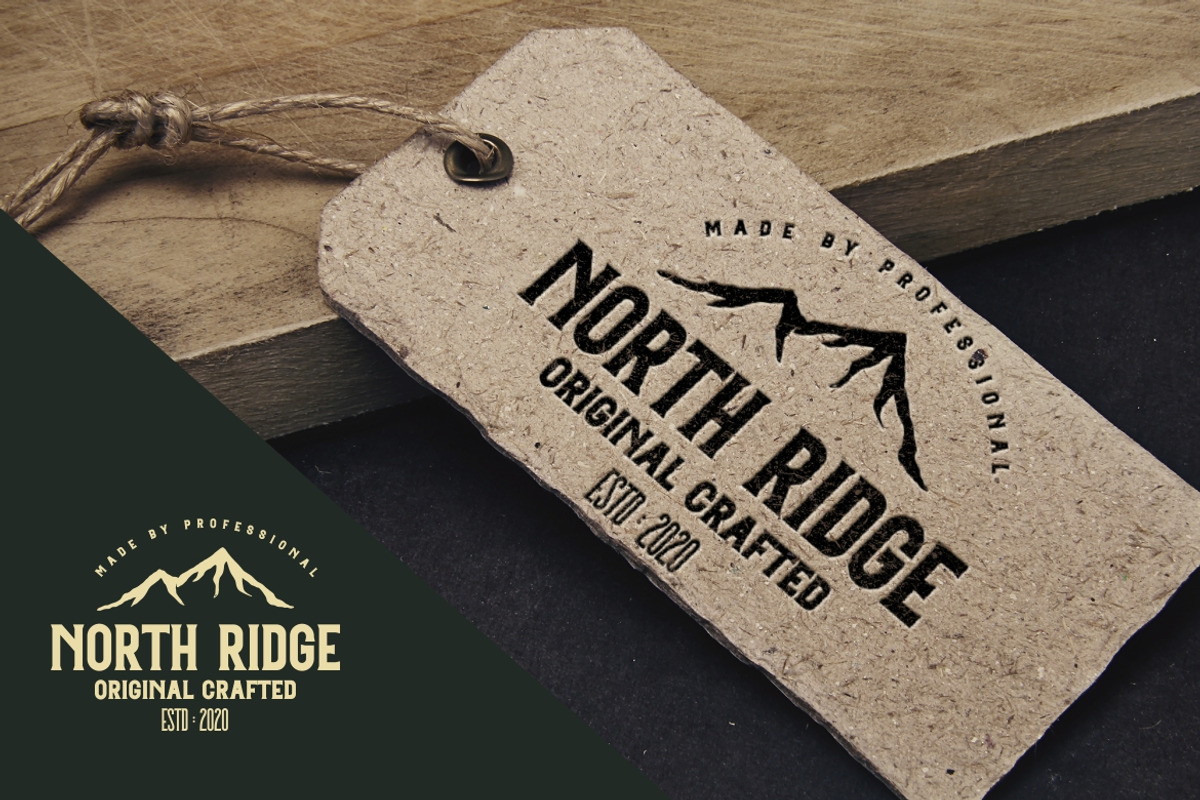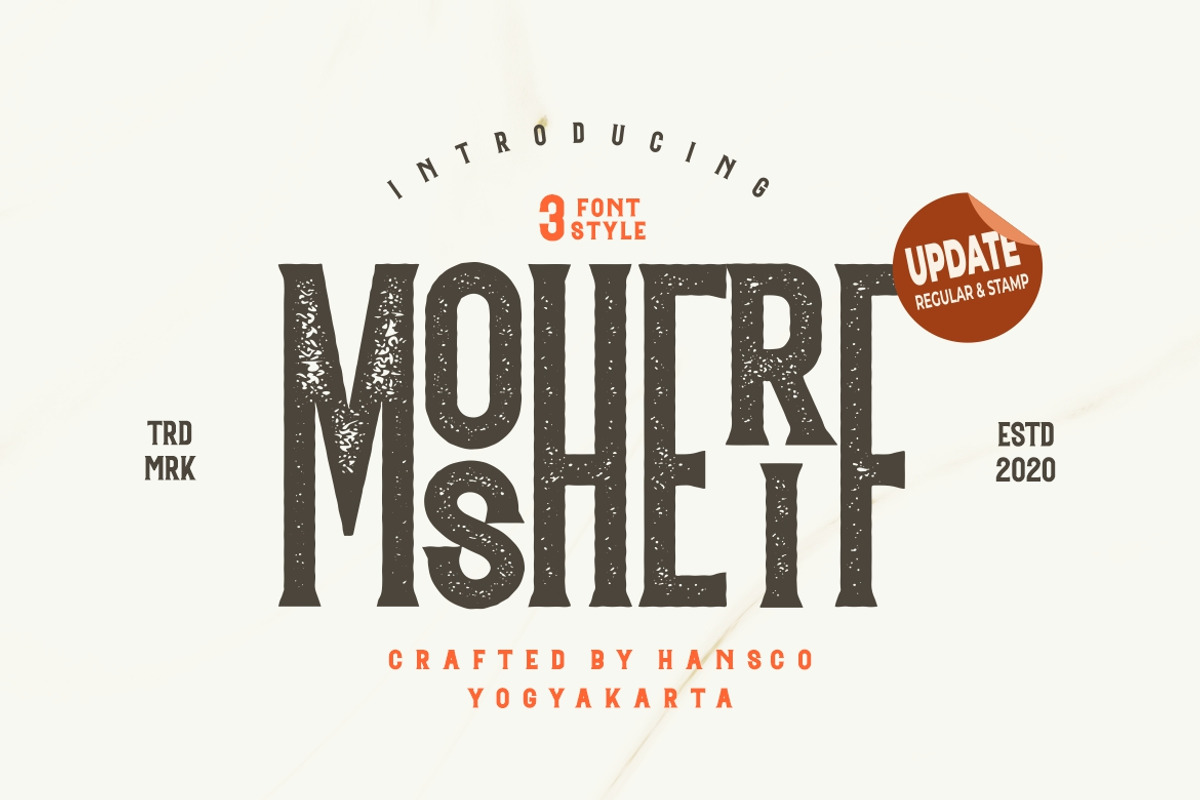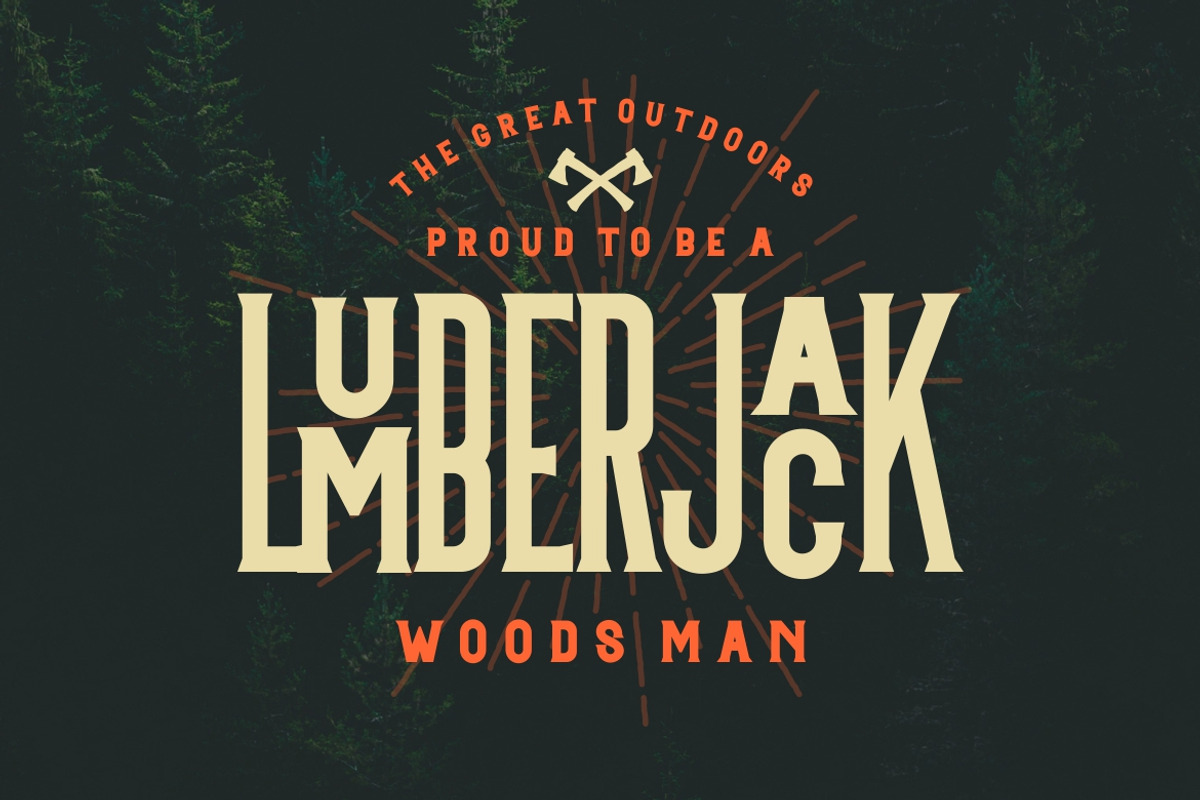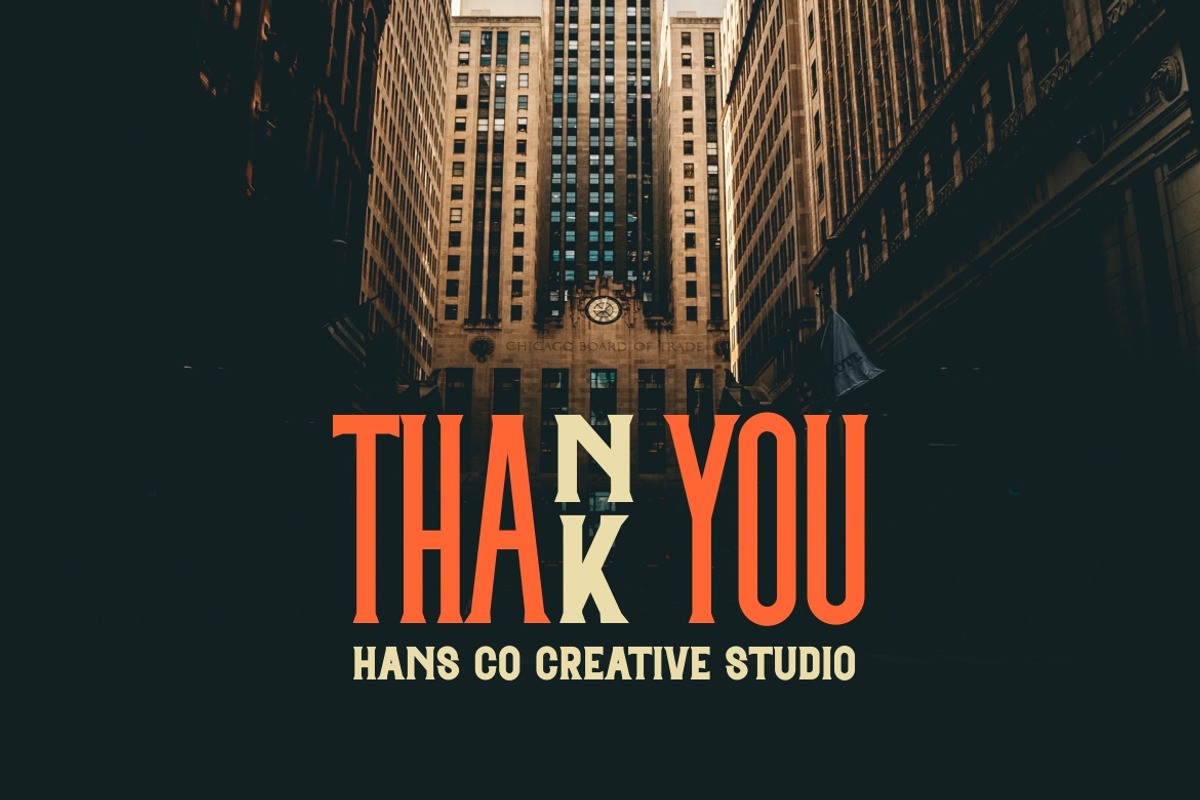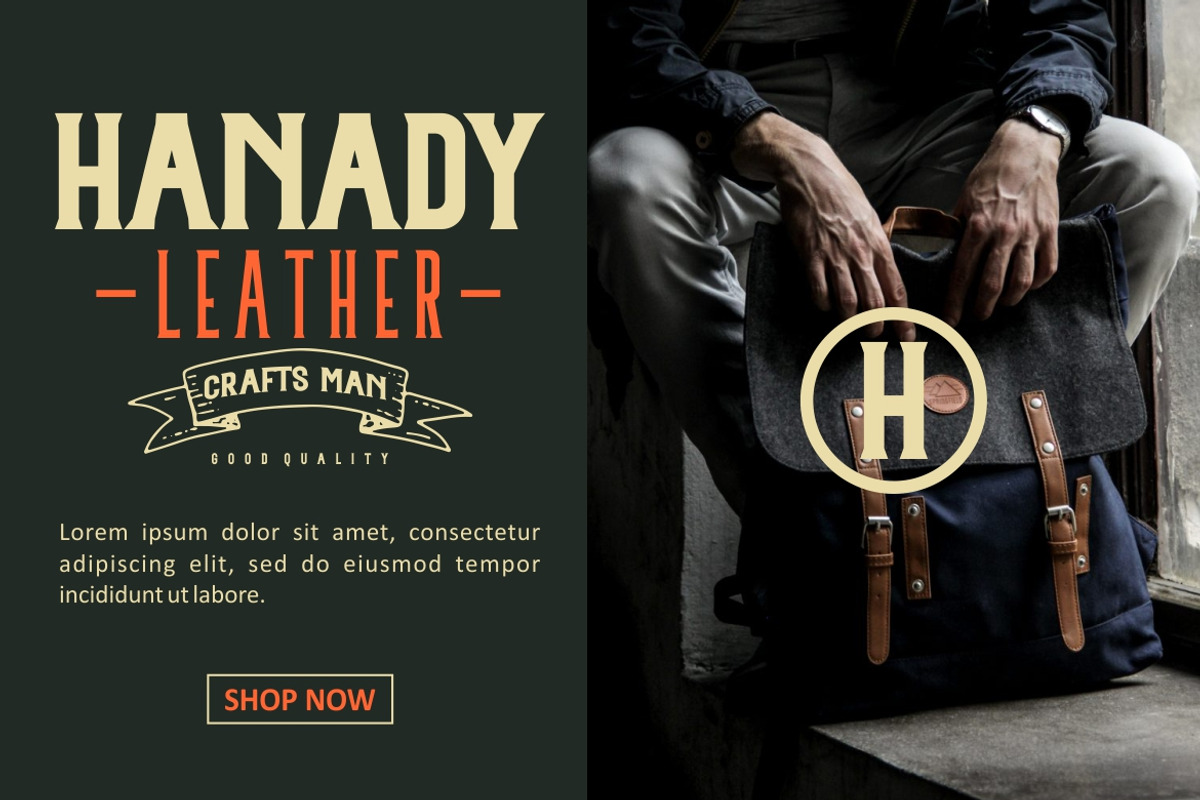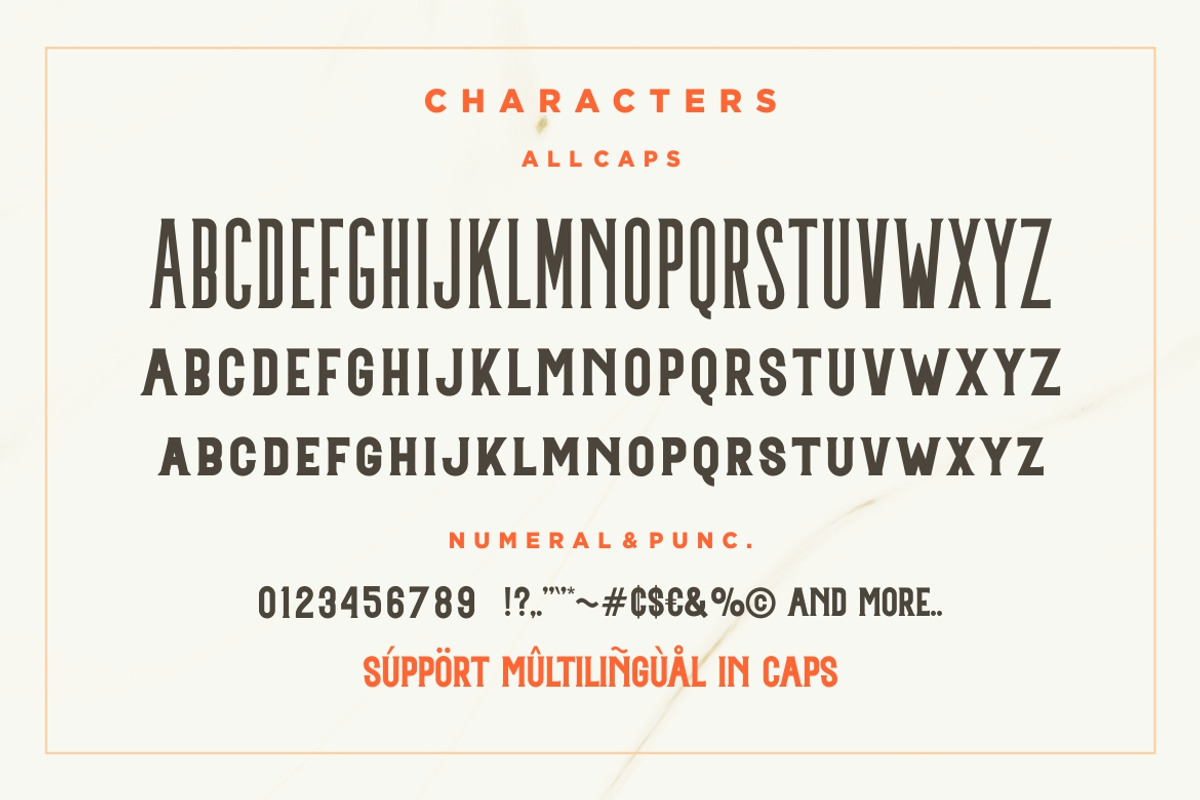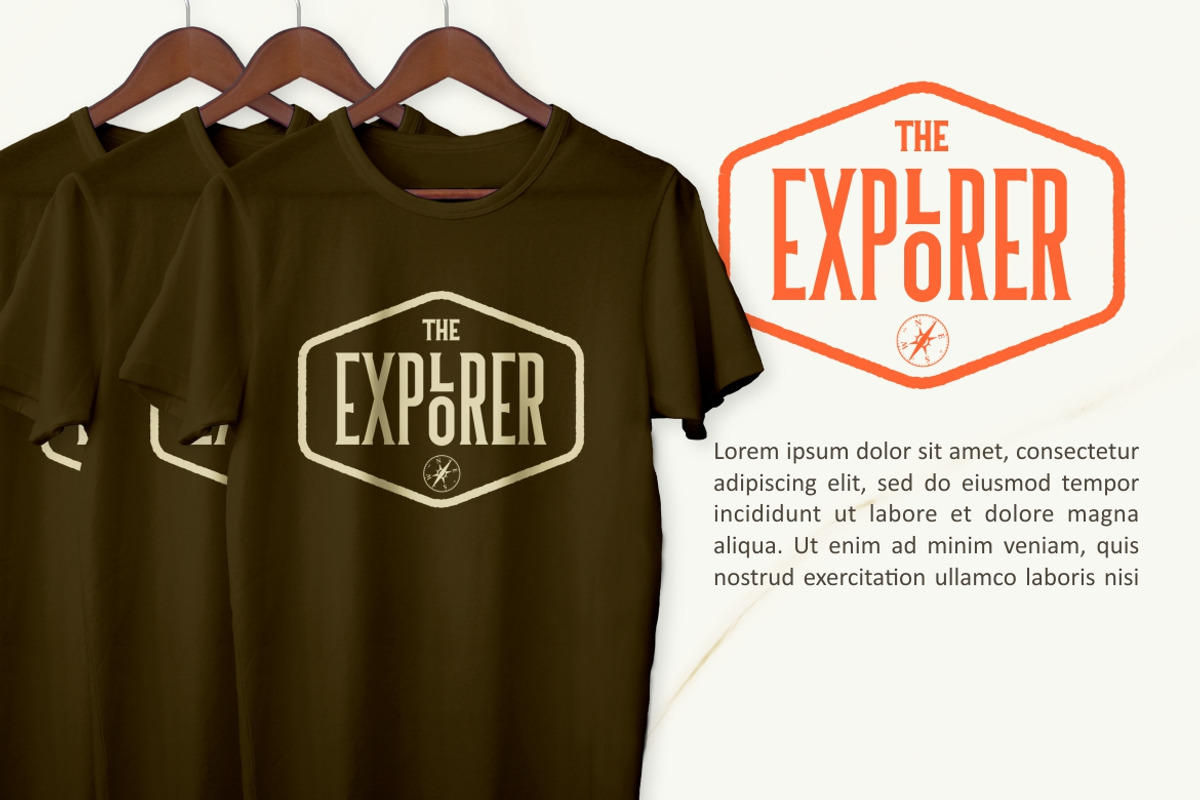
Mosherif - Vintage Serif Font
Mosherif is a vintage serif font inspired by packaging label and vintage signage, Mosherif is all caps font is good for branding, Packaging, poster, headline, book cover, Flyer, t-shirt design and any more.